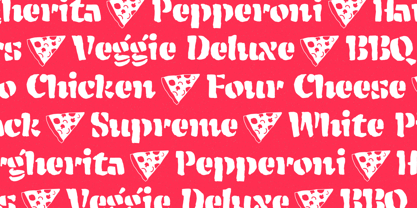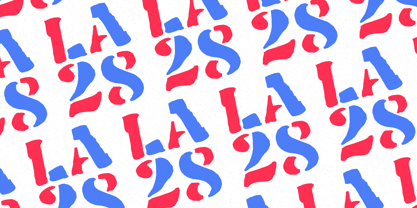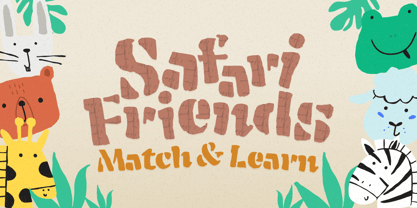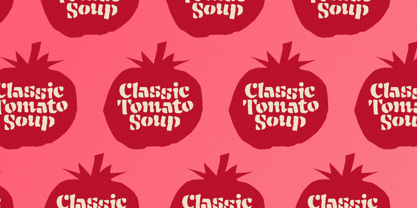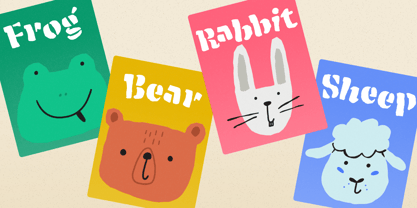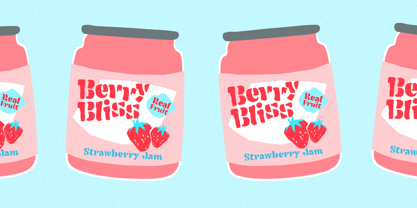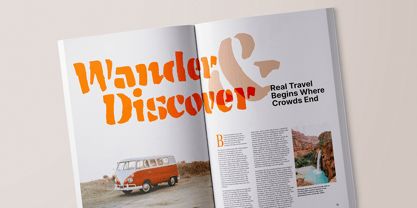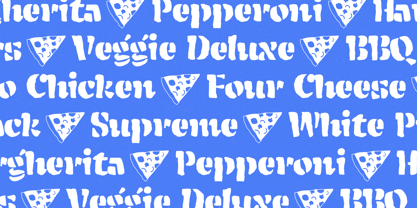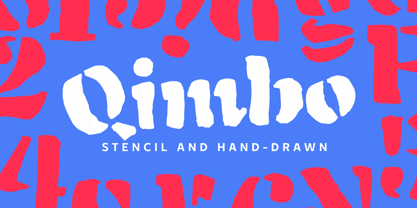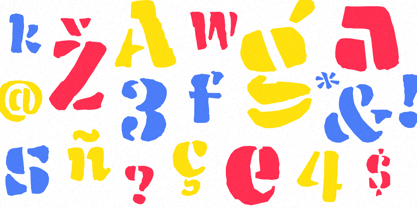
Qimbo
by Resistenza
The Qimbo Font Family was designed by Giuseppe Salerno, Paco González and published by Resistenza. Qimbo contains 2 styles and family package options.
Qimbo is a hand-drawn cut-out stencil display typeface that embodies a bold, handmade aesthetic. Its design features irregular, manually drawn letterforms with stencil breaks, resulting in a tactile, crafted appearance that makes a strong visual statement. The font boasts heavy stroke weights, open counters, and simplified shapes, ensuring clarity even at large sizes. Intentional subtle inconsistencies in outlines and spacing enhance the organic, hand-cut feel while preserving overall balance and readability. Optimized for display use, Qimbo excels in headlines, posters, packaging, children-focused graphics, adventure branding, playful editorial layouts, and expressive visual systems. Its stencil structure creates striking contrast against textured backgrounds, making it ideal for bold, high-energy compositions. Designed for impact rather than neutrality, Qimbo infuses character, warmth, and a distinctly handmade voice into projects that seek a fun, adventurous, and approachable tone.